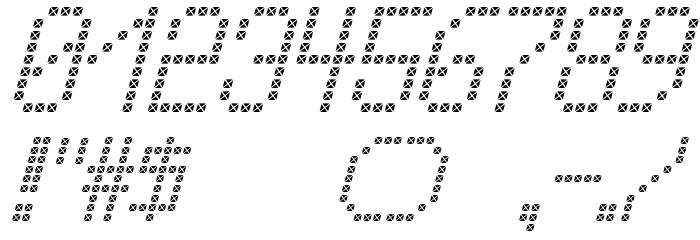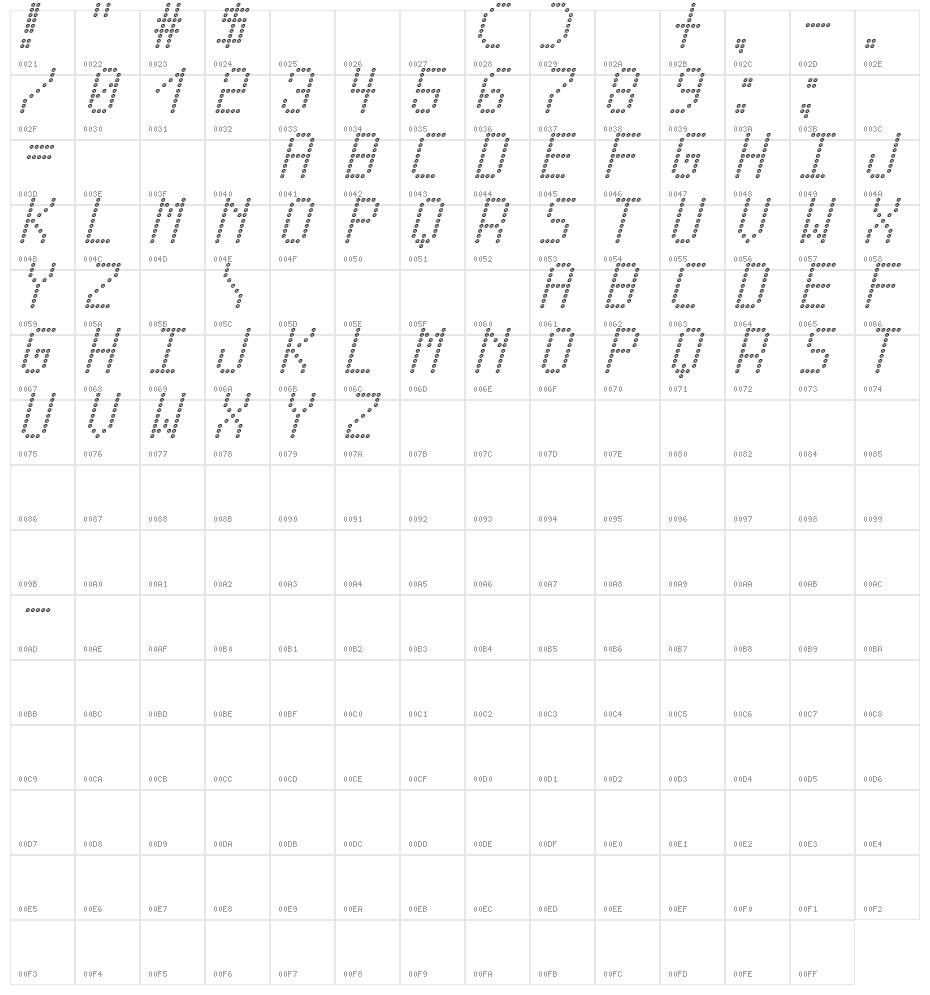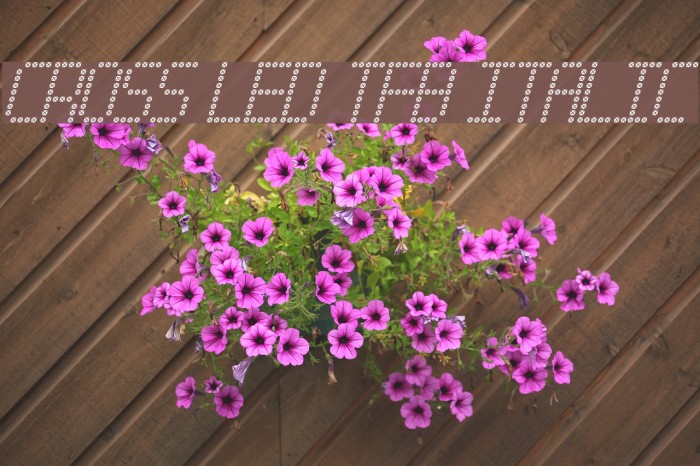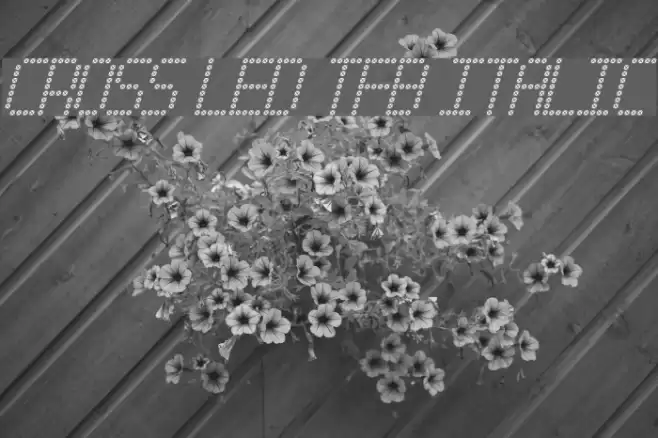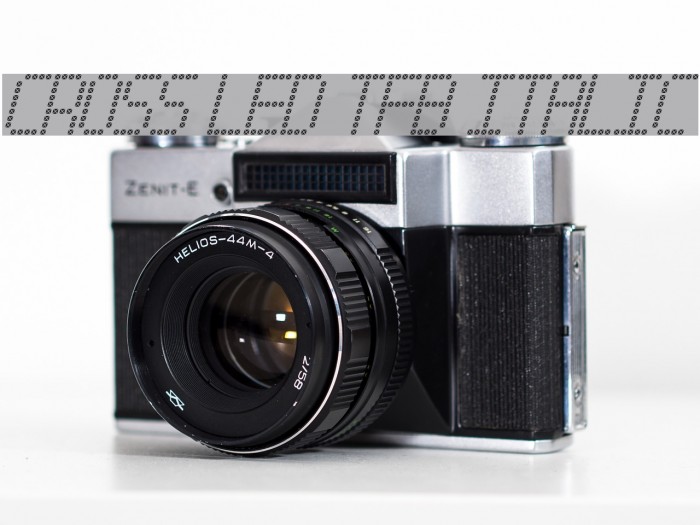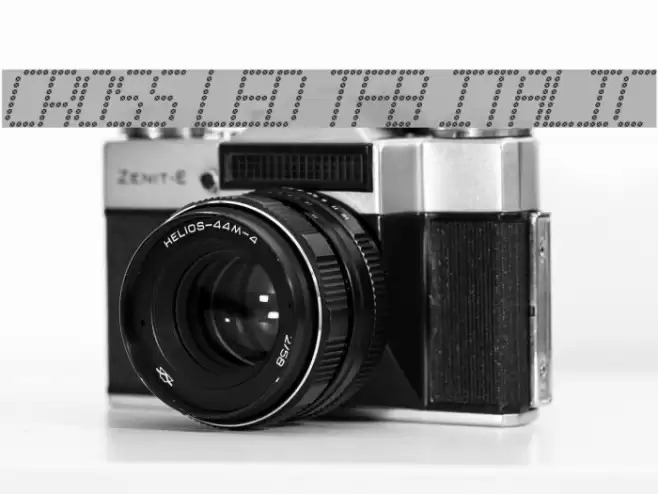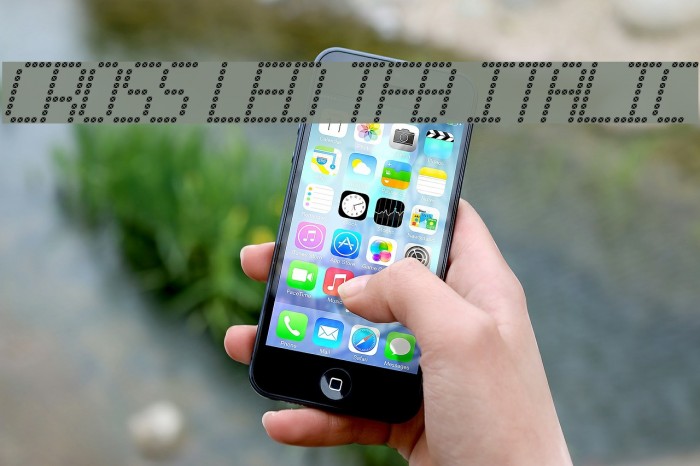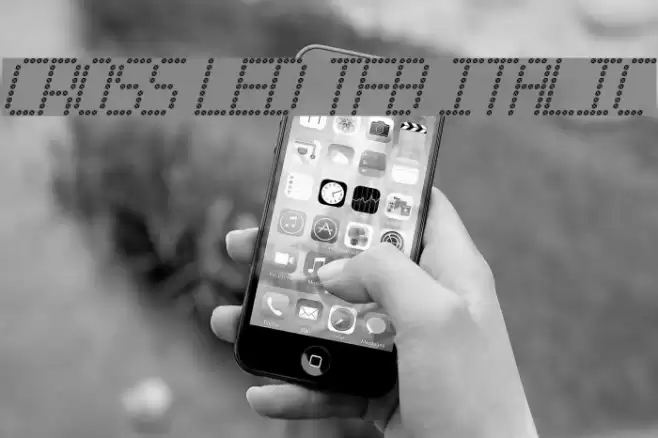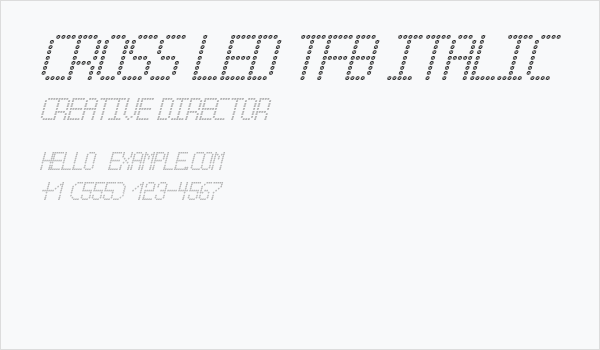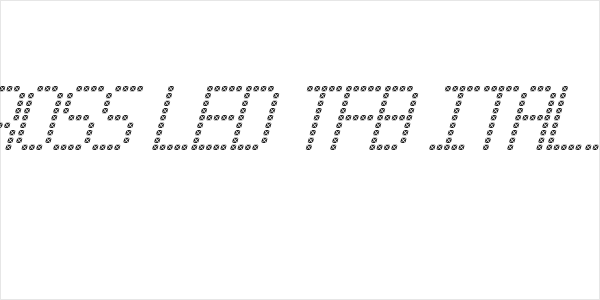
Cross led tfb Italic Font
Cross led tfb Italic Description
This font features a unique design composed of small cross-like shapes forming each character. The letters are italicized, giving them a dynamic and forward-leaning appearance. The style is reminiscent of digital or LED displays, with a modern and tech-inspired aesthetic. Each character is constructed with precision, maintaining consistent spacing and alignment. The font includes both uppercase and lowercase letters, numerals, and a selection of special characters, all maintaining the same distinctive cross-patterned style. This design is particularly eye-catching and would stand out in digital or futuristic-themed projects.
| Use Case | Headlines, Logos, Digital displays |
| Proposed Projects | Ideal for digital displays, tech-themed branding, futuristic posters, and innovative product packaging. |